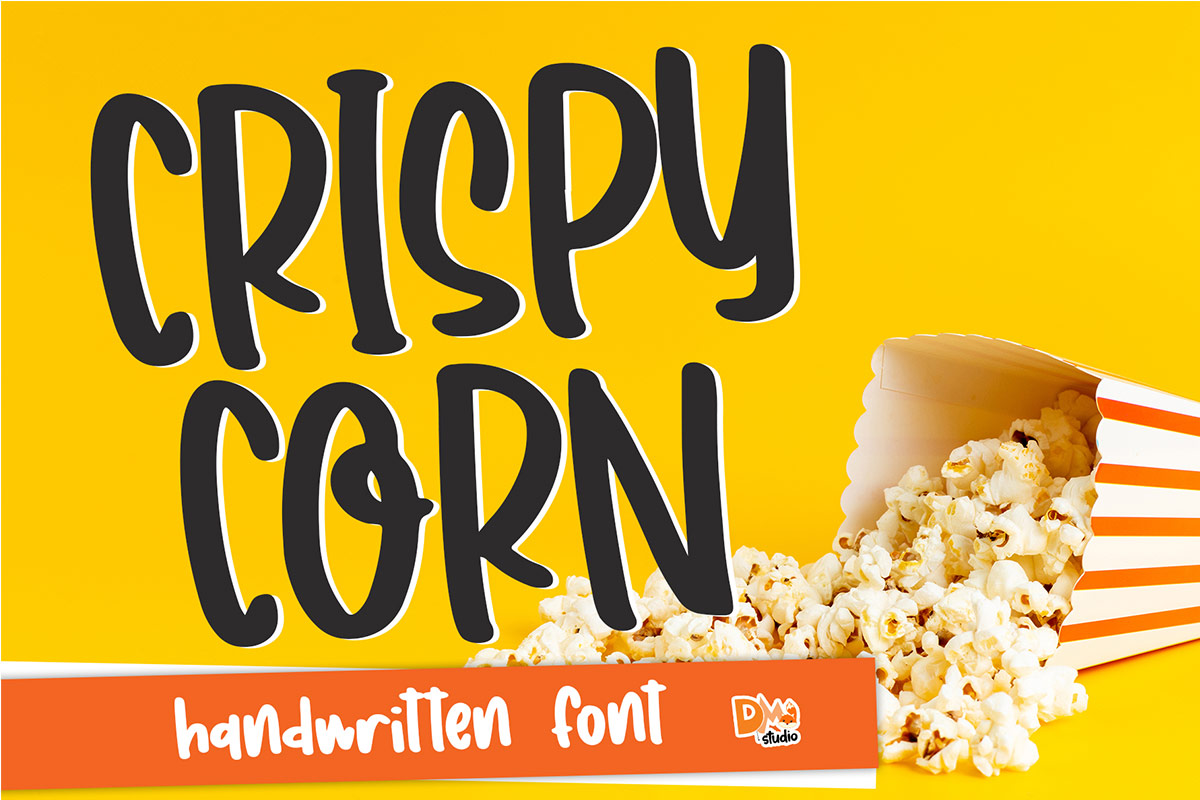
Crispy Corn – Handwritten Font
Add a touch of whimsy to your designs with the Crispy Corn font. Download this playful typeface for free Personal Use and infuse your projects with a lighthearted charm. Perfect for a variety of creative endeavors.
The Crispy Corn Handwritten Font is a delightful and versatile typeface that brings a sense of charm and playfulness to your designs. With its organic and expressive letterforms, this font adds a touch of warmth and character to your packaging, posters, invitations, and other creative projects.
1. Playful and Expressive Style: The Crispy Corn Font exudes a whimsical and lively aesthetic. Its irregular letterforms and playful strokes give it a handcrafted and dynamic look, making it perfect for projects that require a joyful and cheerful typography.
2. Handwritten Appeal: The font captures the organic and spontaneous nature of handwriting, adding a personal touch to your designs. It emulates the quirks and imperfections of natural handwriting, creating a unique and authentic feel.
3. Versatile Application: This font is versatile and well-suited for various design projects that aim to evoke a sense of fun and creativity. Use it in packaging, posters, invitations, social media graphics, and more to infuse your designs with a lively and expressive character.
4. Uppercase and Lowercase Letters: The font includes both uppercase and lowercase letters, providing flexibility and creative freedom in your designs. Mix and match the cases to create visually appealing and harmonious typography.
5. Punctuation and Symbols: In addition to the alphabet, the Crispy Corn Font includes a comprehensive set of punctuation marks, numerals, and common symbols. This ensures consistency and ease of use when incorporating the font into your design projects.
Infuse your designs with the playful and expressive vibe of the Crispy Corn Handwritten Font. Let its organic and dynamic letterforms add a touch of warmth and character to your packaging, posters, and invitations. Embrace the natural beauty of this font and create designs that spark joy and ignite creativity in your audience.